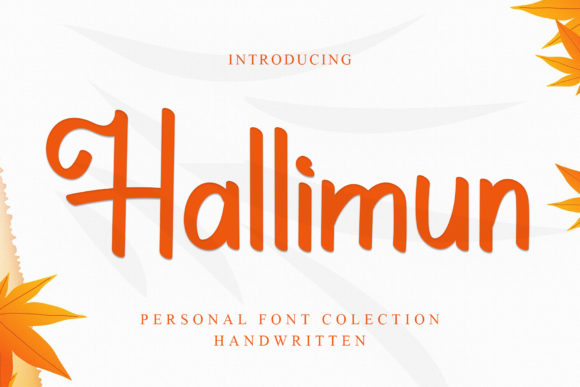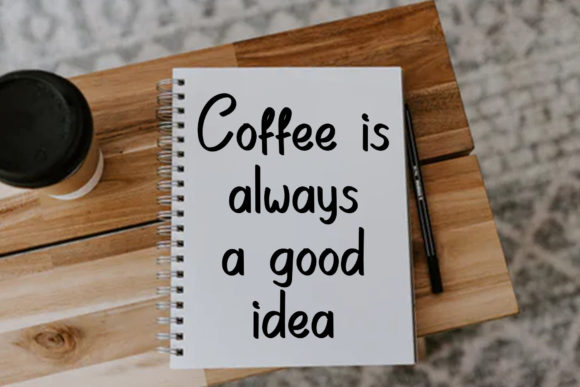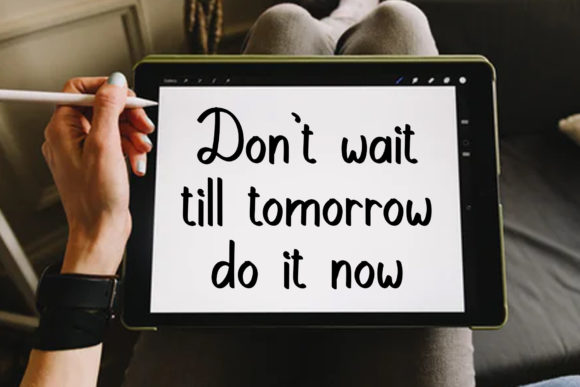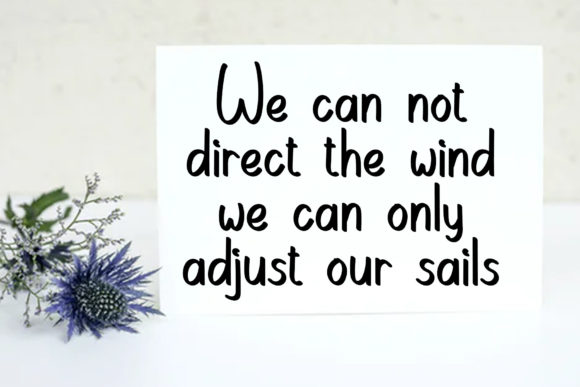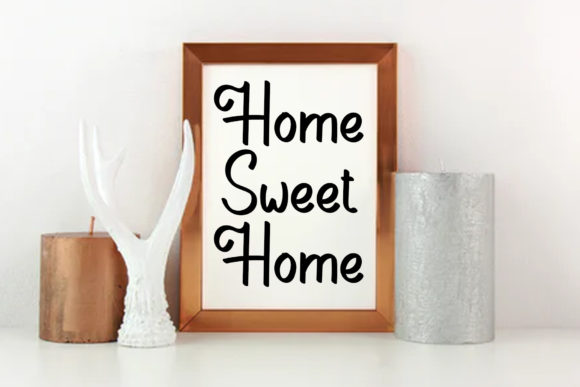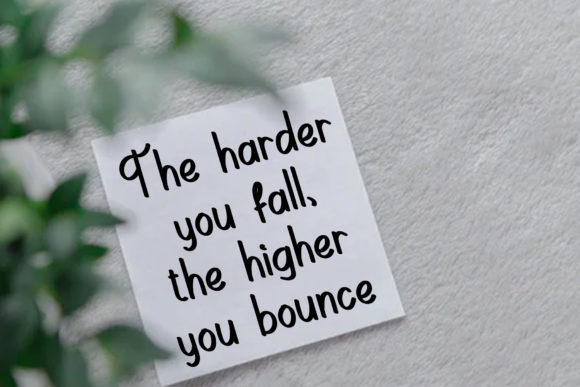
Hallimun Font
About Hallimun Font
Hallimun is a creative and fun handwritten font that can elevate the look of any creation! Use it on labels, books, invitations, birthday cards, apparel designs, and so much more!